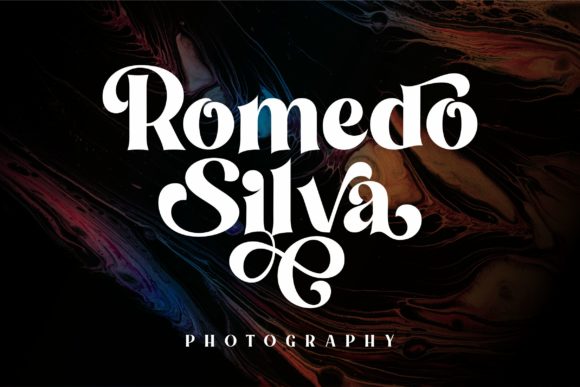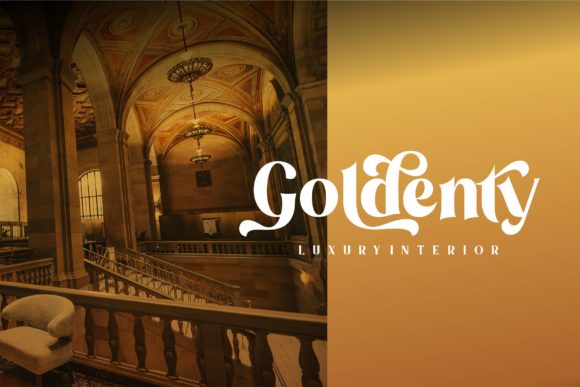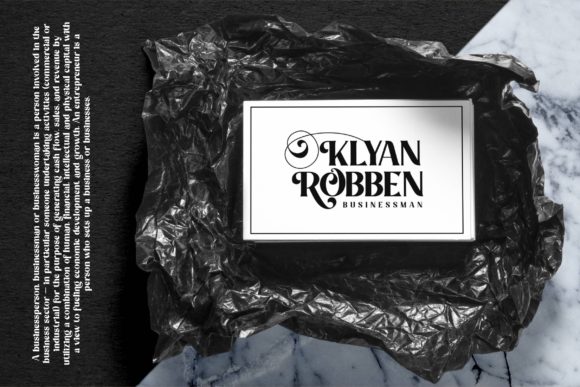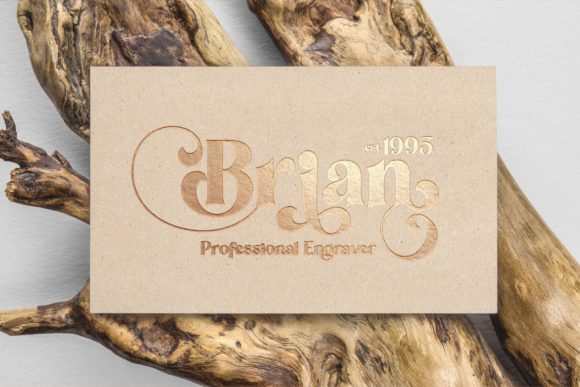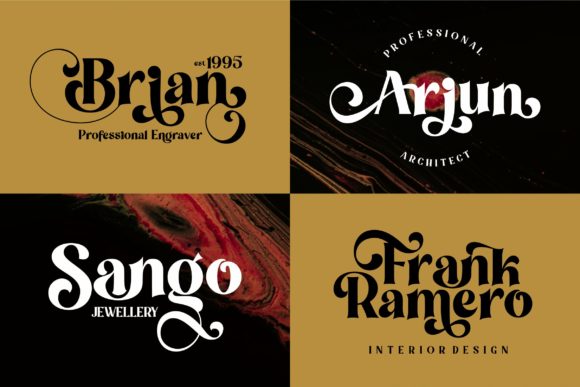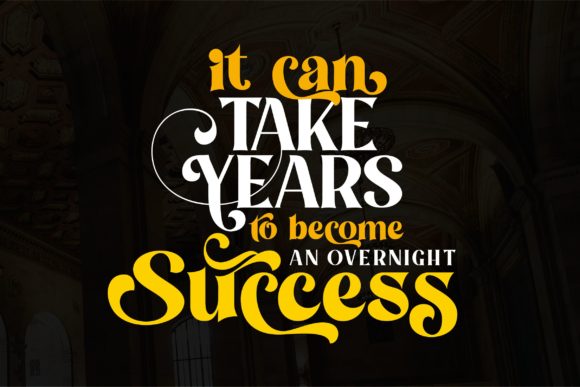
Introduction to Mount Hills Font
Have you ever had that moment when the perfect design idea hits you, but the right font is nowhere to be found? For designers, this can be a frustrating experience, especially when you’re working on a high-stakes creative project. But what if I told you that there’s a font that can take your designs to the next level?
Enter the Mount Hills Font, an incredibly luxurious display font that’s designed to elevate your creative vision. With its high-quality design and transparent background, this font is a valuable resource for any designer looking to add a touch of sophistication to their work.
Key Features of Mount Hills Font
- High-quality design resource ideal for creative projects, offering a unique and elegant style.
- Features a transparent background, allowing for seamless integration into your design.
- Designed with a modern aesthetic, making it perfect for use in a variety of creative projects, including logos, graphics, and typography.
- Comes with a comprehensive character set, including uppercase and lowercase letters, numbers, and punctuation marks.
Honest Review: Mount Hills Font
I recently had the chance to use the Mount Hills Font for a creative project and I’m here to share my honest review. As a designer, I’m always on the lookout for high quality design resources that can elevate my work. The Mount Hills Font definitely fits the bill.
- ✨ High quality and crisp typography: The font is well-designed and easy to read, making it perfect for body text or headings.
- ✨ Versatile and modern style: The Mount Hills Font has a sleek, modern look that can work well for a variety of creative projects, from digital products to print materials.
- ✨ Transparent background: The font is designed with a transparent background, making it easy to layer over images or other design elements.
- ⚠️ Limited font weight options: While the font is high quality, it only comes in a few weight options, which may limit its versatility for some projects.
- ⚠️ No italics or obliques: Unfortunately, the font does not include italic or oblique versions, which may be a drawback for designers who need to emphasize certain text.
Overall, I was impressed with the Mount Hills Font and would recommend it to designers looking for a high-quality, modern font for their creative projects. While it may have some limitations, its strengths outweigh its weaknesses, making it a solid addition to any design resource library.
Tips for Getting the Most Out of Mount Hills Font
Experiment with different font sizes and colors to create visual interest.
Combine Mount Hills Font with other design elements to create a unique look.
Use Mount Hills Font for branding, logos, and marketing materials.
Apply it to social media graphics, flyers, and brochures.